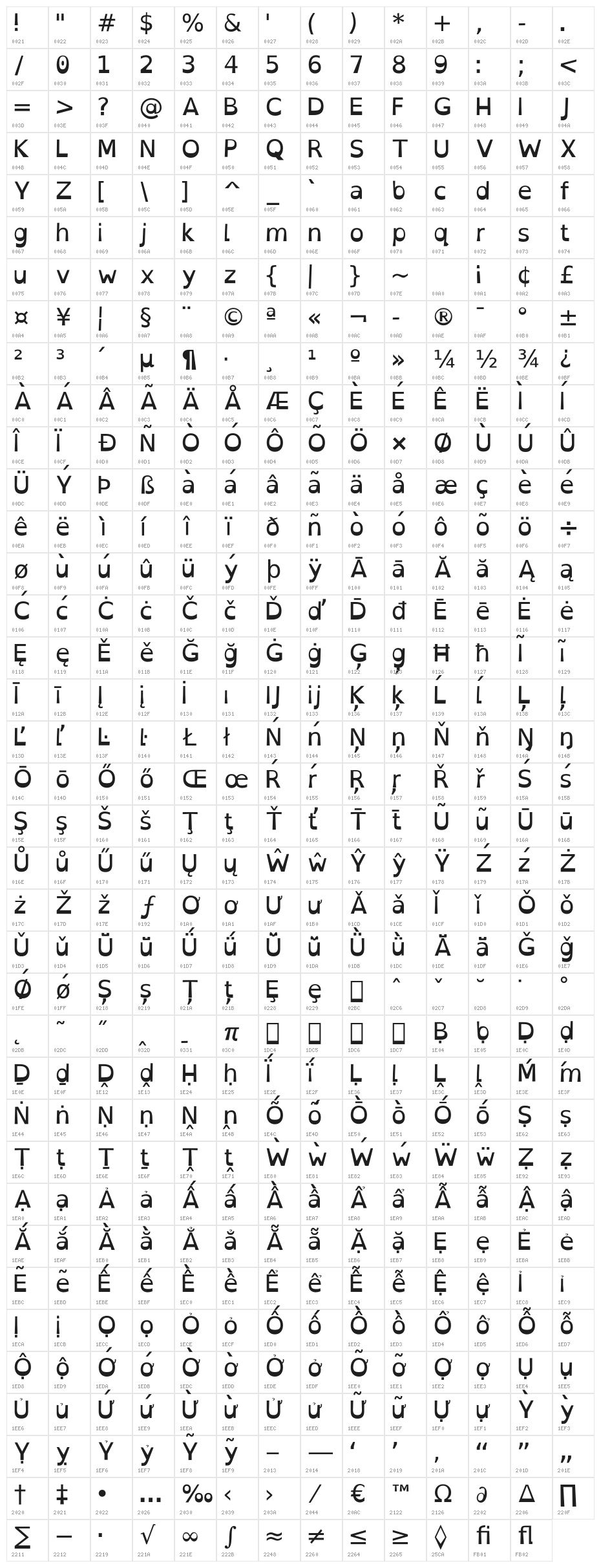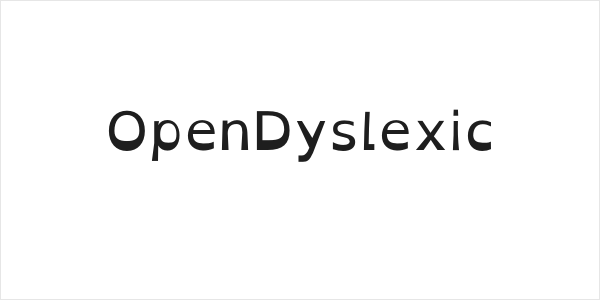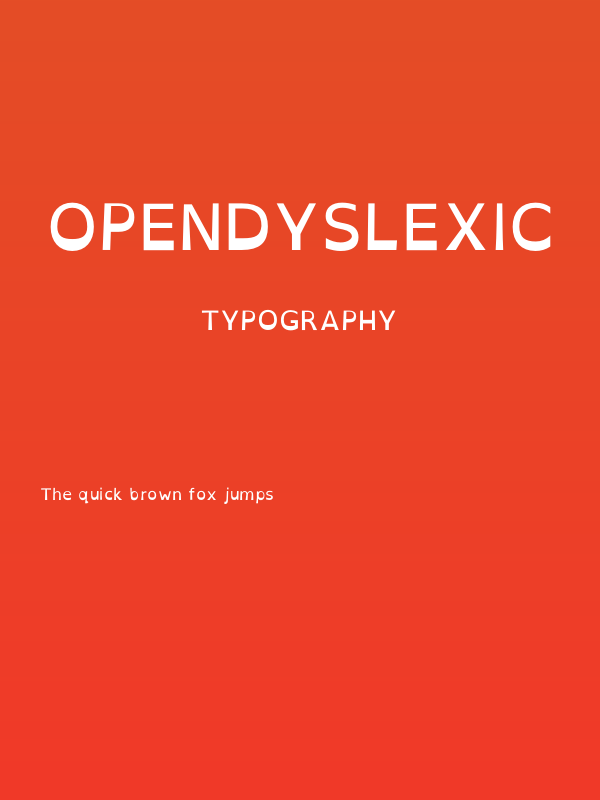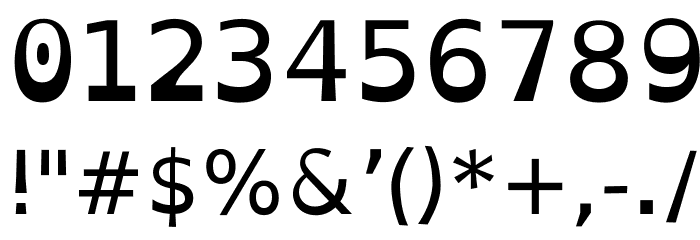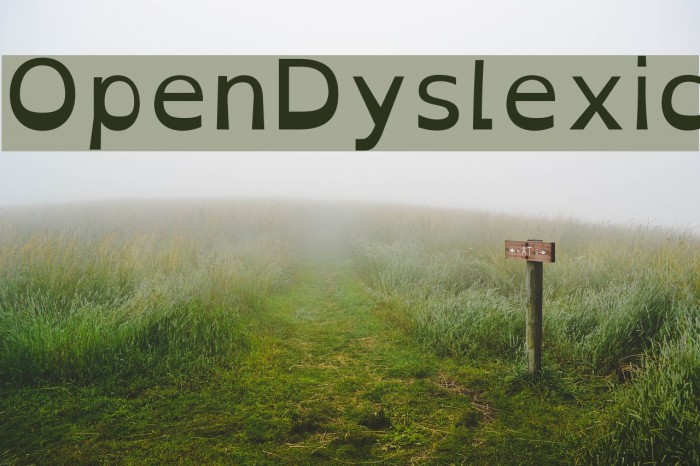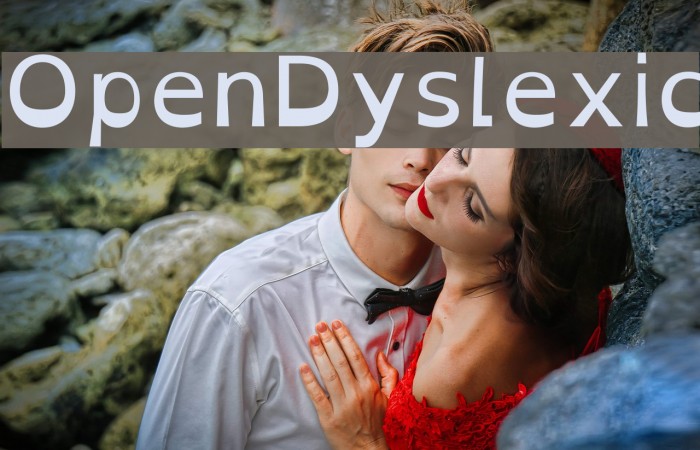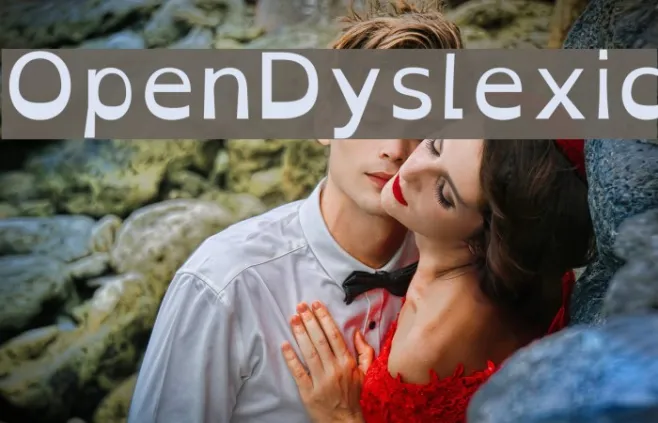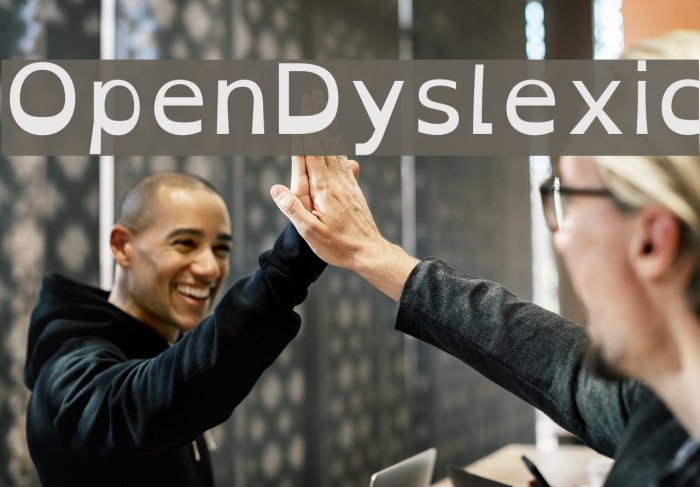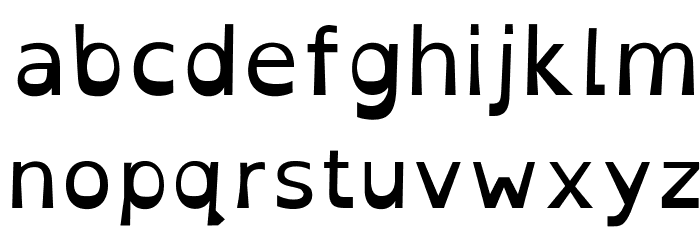
OpenDyslexic Font
OpenDyslexic Description
This font is designed with a unique approach to aid readability, particularly for individuals with dyslexia. It features distinct letter shapes and heavier bottoms, which help prevent the letters from flipping or swapping. The characters are bold and have a slightly irregular form, which adds to their distinctiveness and readability. The font maintains a clean and modern appearance, with a focus on functionality over decorative elements. The spacing between characters is carefully considered to enhance legibility, making it suitable for various reading environments.
| Use Case | Body text, Educational materials, Accessibility projects |
| Proposed Projects | Ideal for educational materials, accessibility-focused websites, and any project aiming to improve readability for dyslexic readers. |